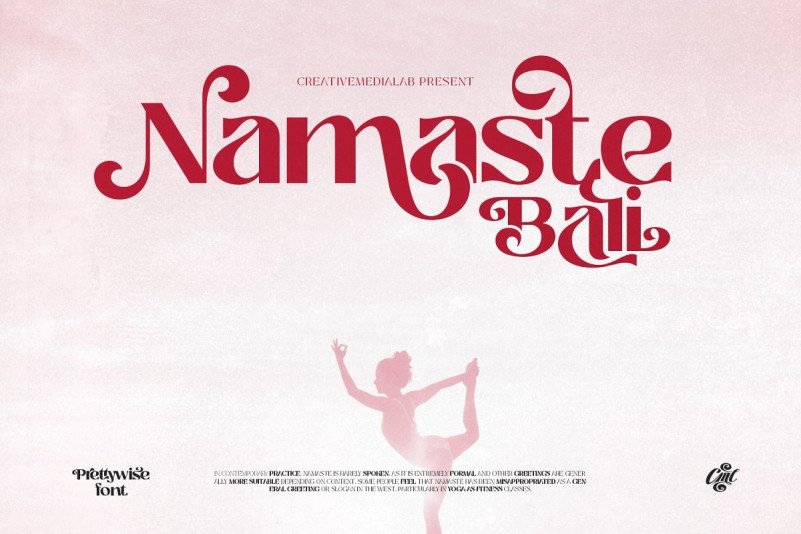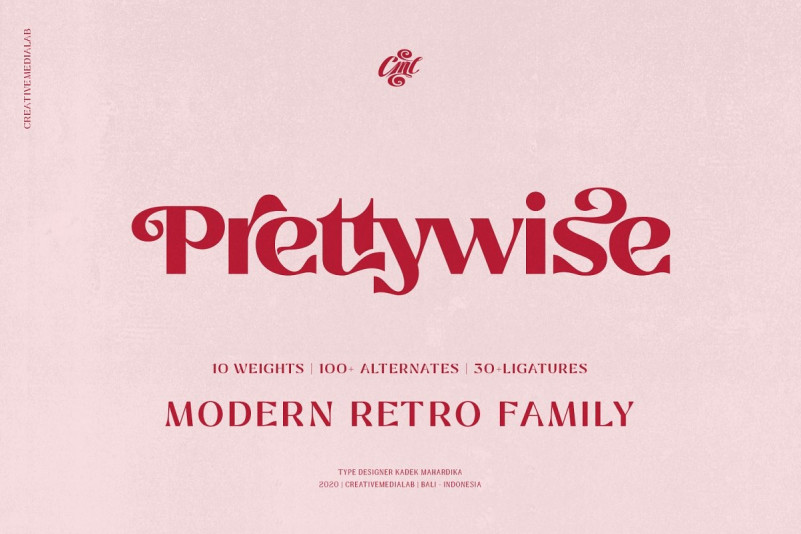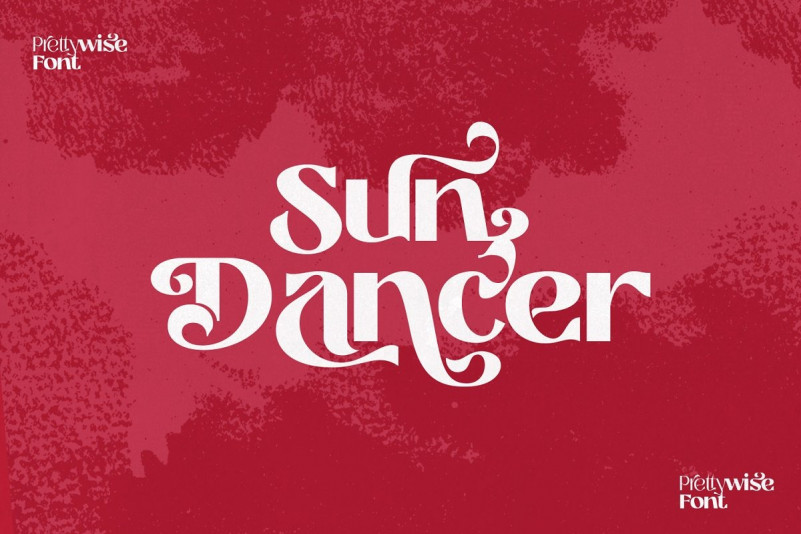
Prettywise Font
Unique and beauty Modern serif family including 30+ ligatures and 100+ alternates to mix and match for a stunning display or header.
This versatile family consists of 10 weights, variable styles as well as multilingual support, numbers, and currency symbols.
Suitable for use in many design forms, for example, magazines, logos, web design, DIY projects, quotes, packaging, postcards, vintage or retro look badges, old classic music, the 60s, 70s, 80s era, stickers, label, wedding theme and many more. We recommend using Adobe Programs.